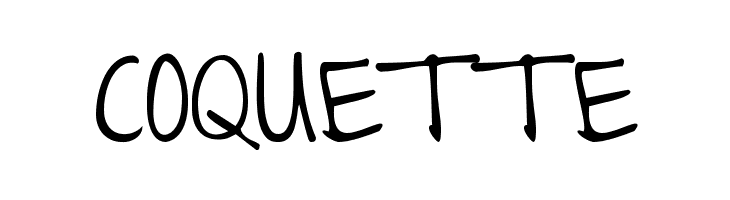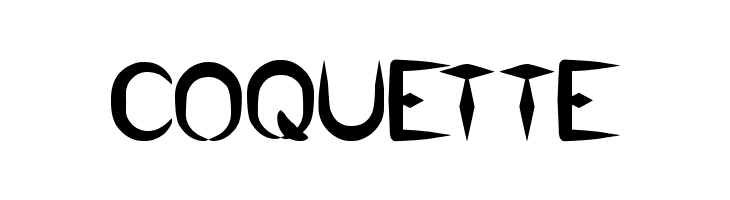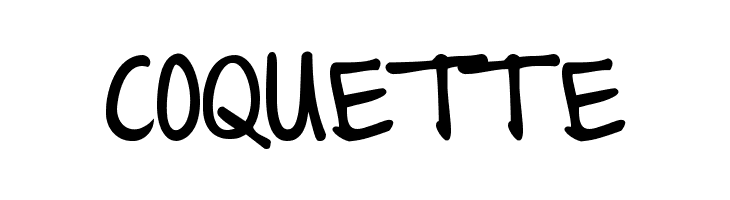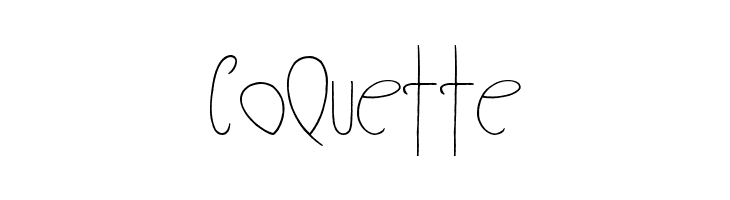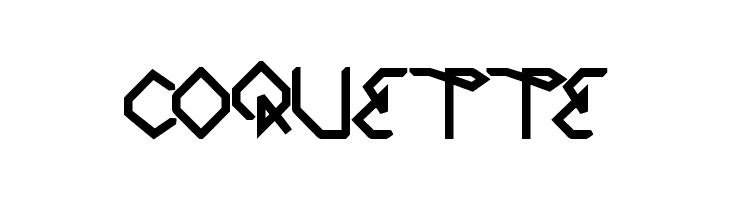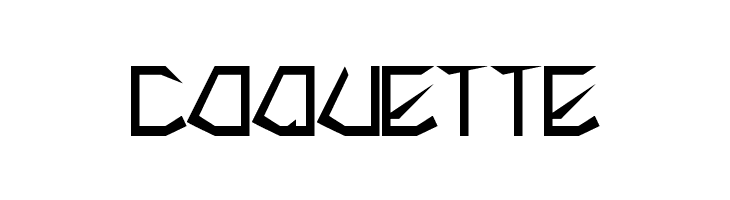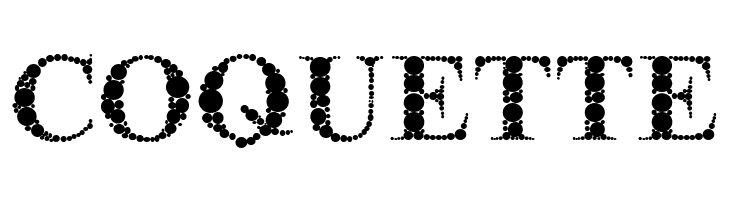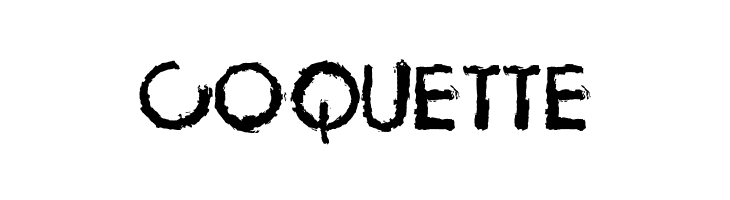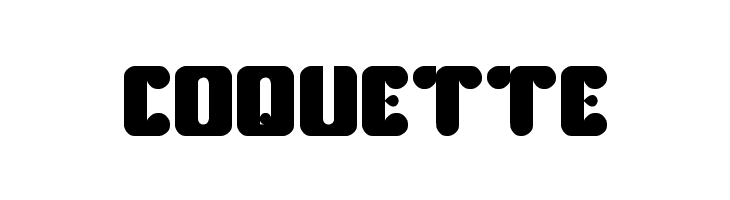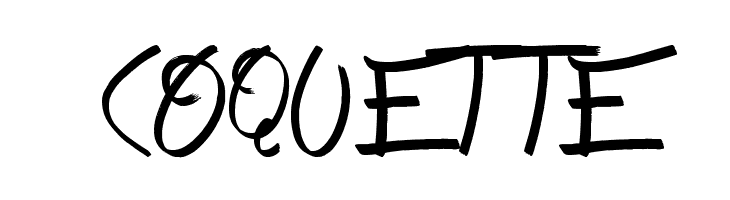
A font depicting the alphabet and numbers through hand signs, inspired by sign language.
A bold, geometric stencil font with sharp angles and solid forms.
A whimsical, hand-drawn style font with playful decorative elements.
A pixelated, retro-style font with a blocky, geometric design.
A bold, dynamic font with a slanted, energetic design.
A segmented, digital-inspired font with a futuristic and technical style.
A futuristic, segmented font with a digital, LED display style.
A bold, italic, geometric font with a futuristic, digital appearance.
A futuristic, segmented font with an italic slant, ideal for digital-themed projects.
A futuristic, segmented font with an oblique slant and digital appearance.
A bold, modern serif font with strong, angular serifs and cohesive design.
A playful, handwritten-style font with a quirky and informal design.
A playful, handwritten font with a quirky and creative style.
A playful and whimsical font with quirky, irregular strokes and rounded edges.
A classic serif font with elegant, elongated letterforms and refined serifs.
A bold, modern serif font with strong, dynamic strokes and a slightly condensed appearance.
A bold, italic font with a dynamic and elegant style.
An elegant italic font with a classic and sophisticated style.
A classic serif font with elegant curves and medium contrast.
A bold, italic serif font with a dynamic and energetic style.
A modern, rounded font with clean lines and even spacing.
A bold, playful font with a hand-drawn, casual style.
A playful, hand-drawn outline font with a whimsical and casual style.
An elegant, flowing script font with a handwritten appearance.
Hand-drawn, playful symbol font with hearts and cartoon faces.
A bold, playful font with rounded edges and a whimsical style.
An abstract, single-line font with geometric and angular characters.